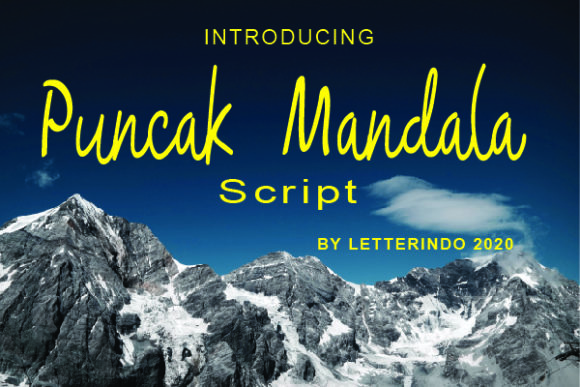
Introducing Puncak Mandala, the breathtaking handwritten font that will leave you spellbound with its enchanting charm. This elegant script was crafted to ignite creativity, allowing you to weave captivating tales or express your emotions with a touch of grace.
Puncak Mandala is more than just a font; it's an artistic journey that transports you to a realm of beauty and imagination. Its flowing curves and delicate strokes evoke a sense of sophistication and elegance, capturing the essence of handwritten letters.
With Puncak Mandala, you hold the key to unlocking boundless creativity. Design wedding invitations that exude romance and timeless beauty, greeting cards that warm hearts with their sincerity, and social media posts that radiate with captivating allure. The possibilities are endless, limited only by your imagination.